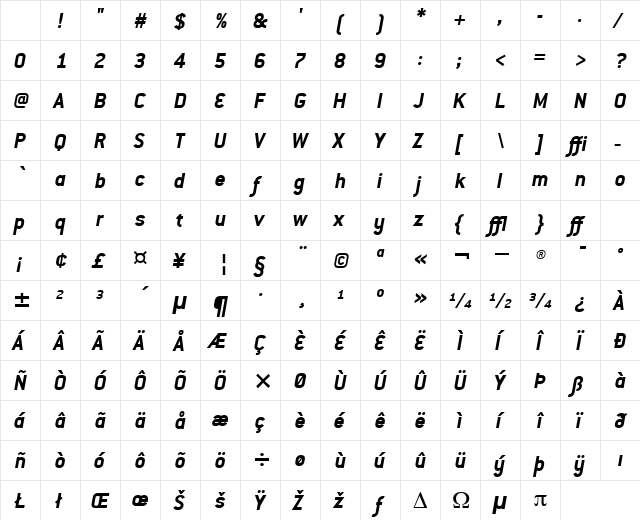
Complete ConduitITC TT BoldItalic glyph index. Displaying only characters natively supported by ConduitITC TT BoldItalic font.
ConduitITC TT is a composed and adaptable typeface that performs quietly and consistently across a wide range of design contexts. The slanted form adds forward momentum and visual energy. Its bold stroke weight gives it real presence on the page. Its narrow stance lets it pack a punch even in space-constrained designs.